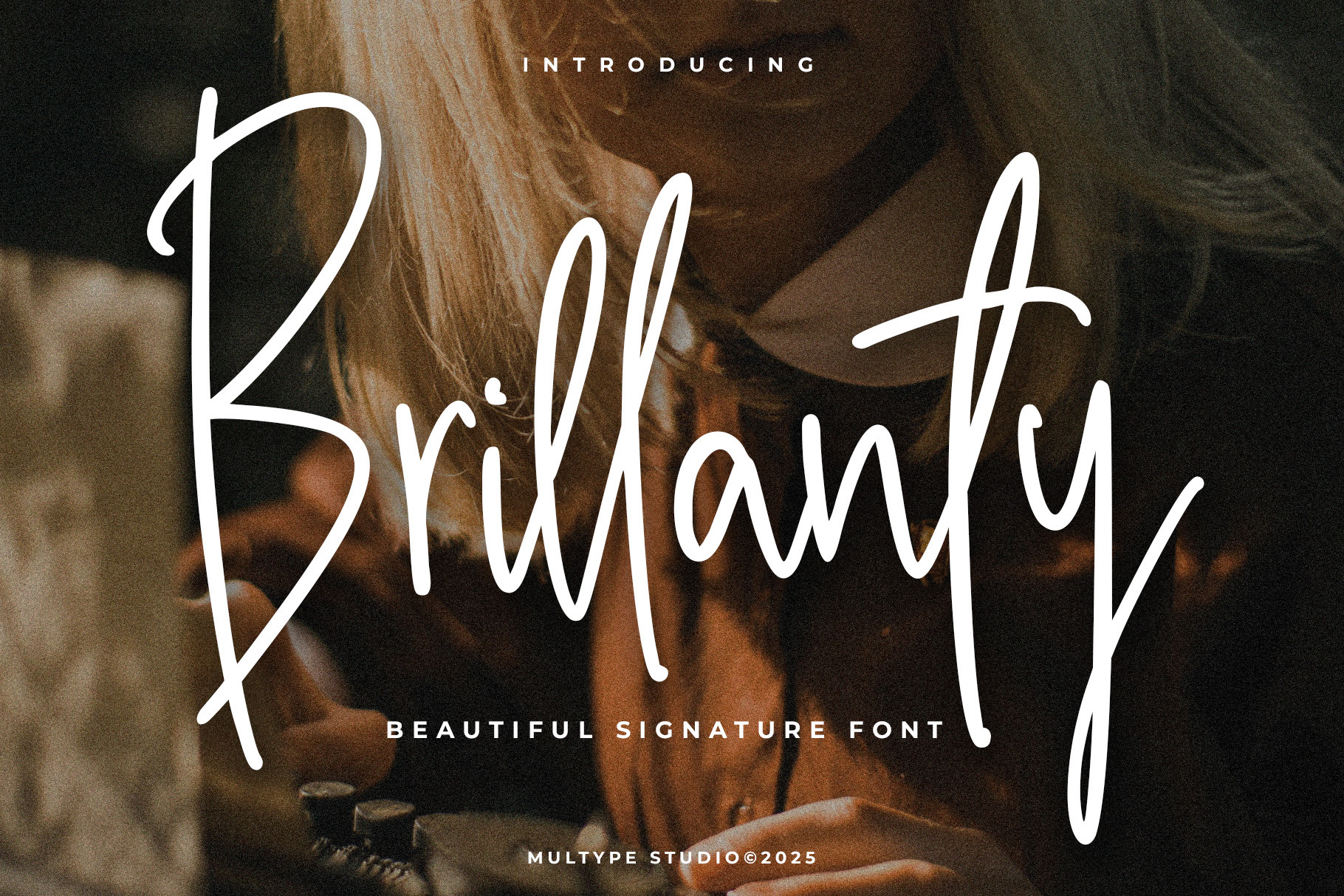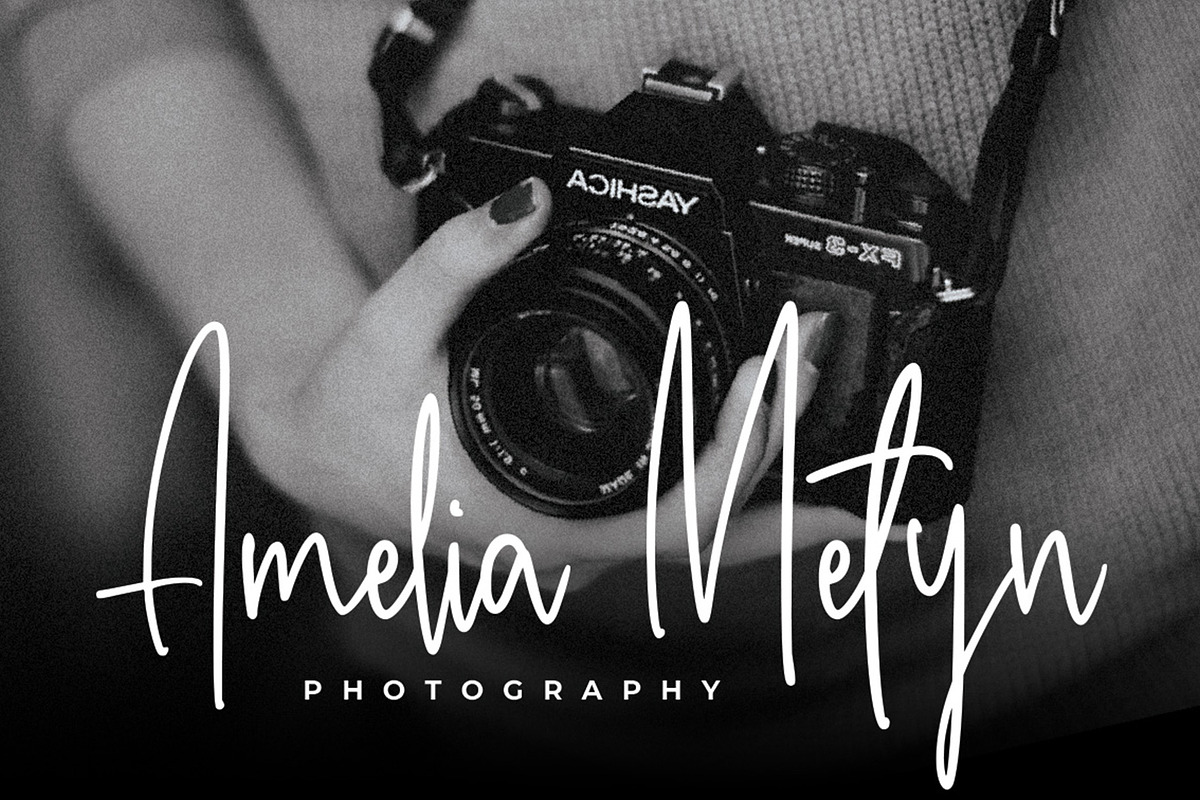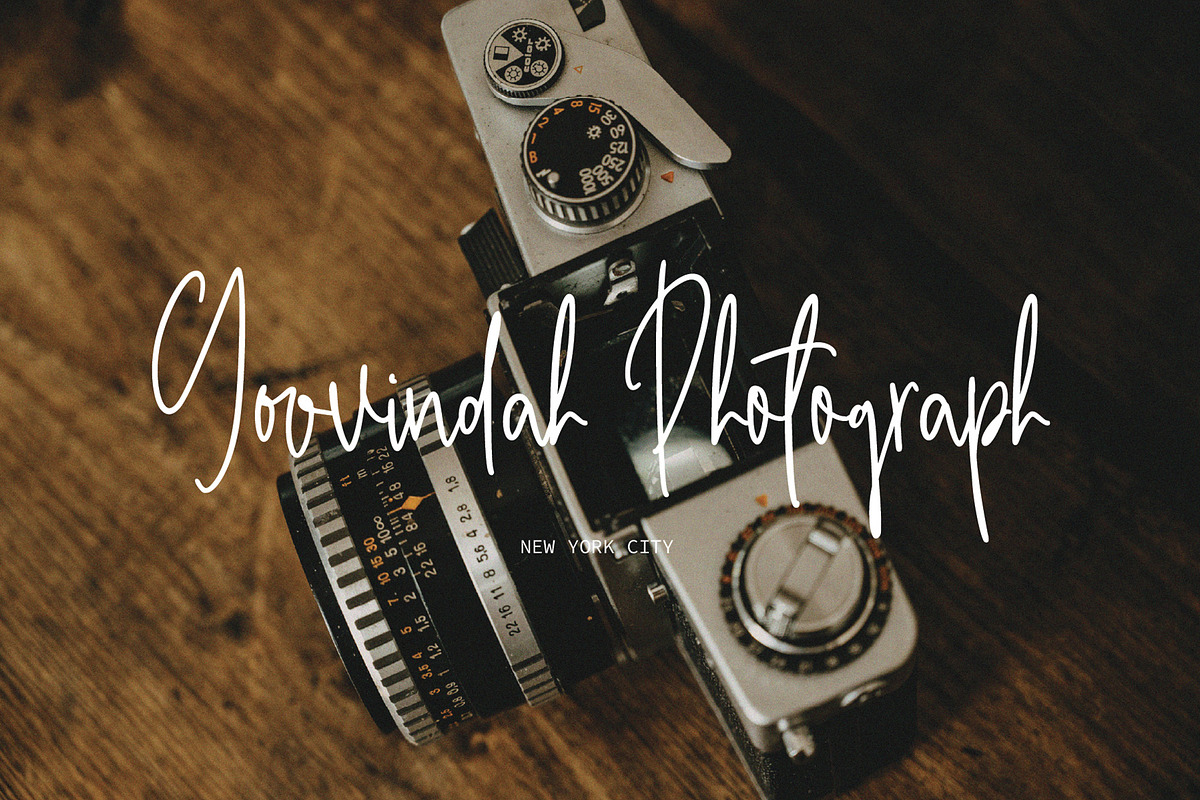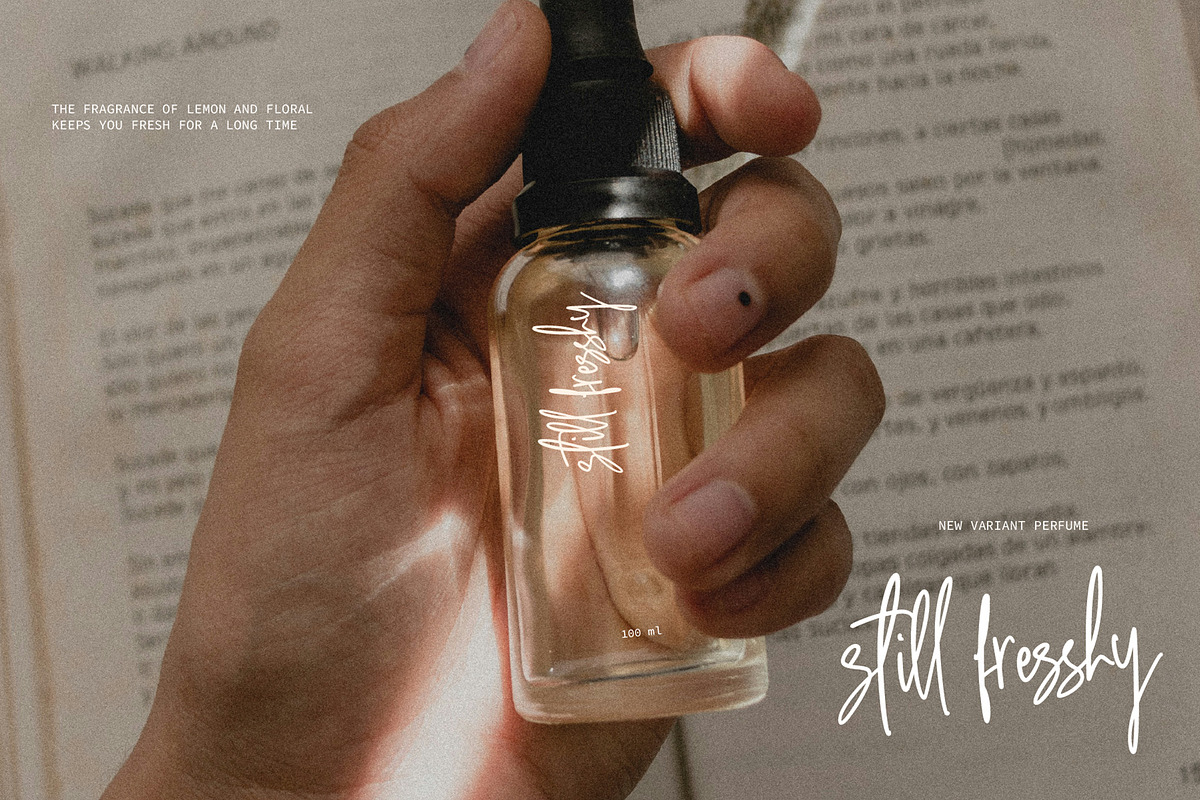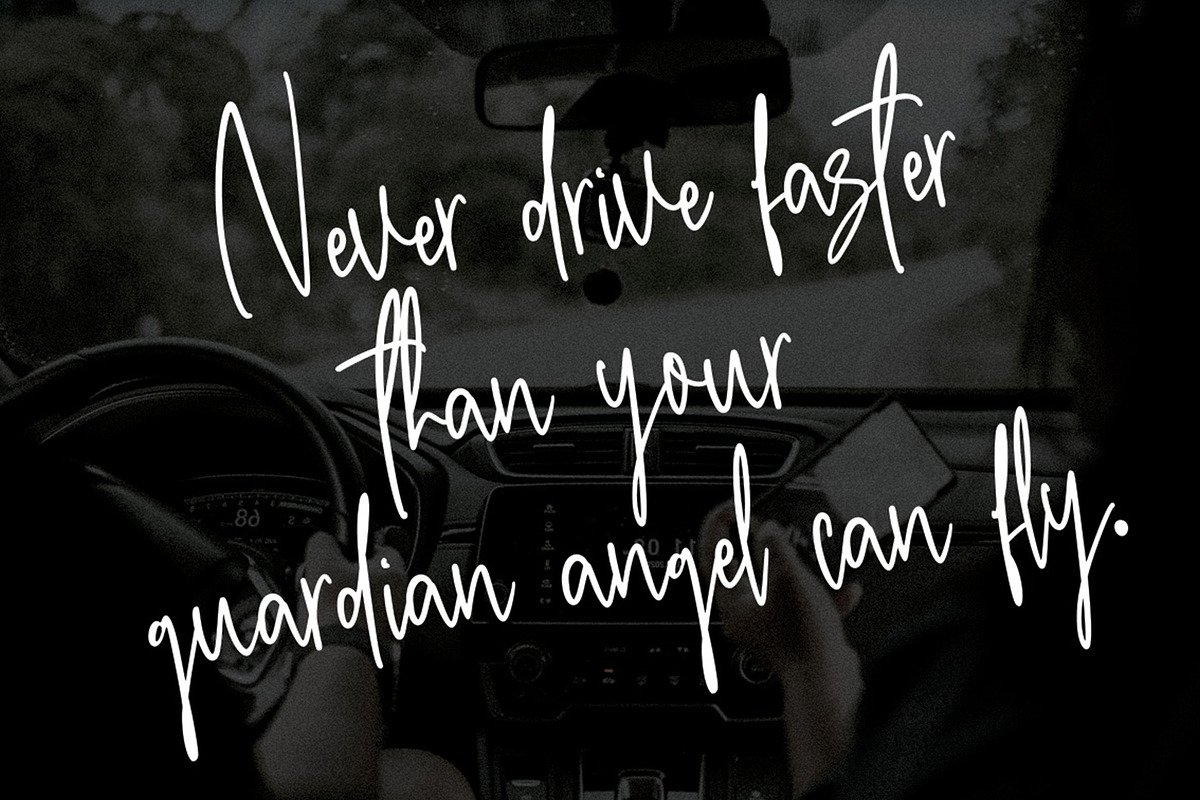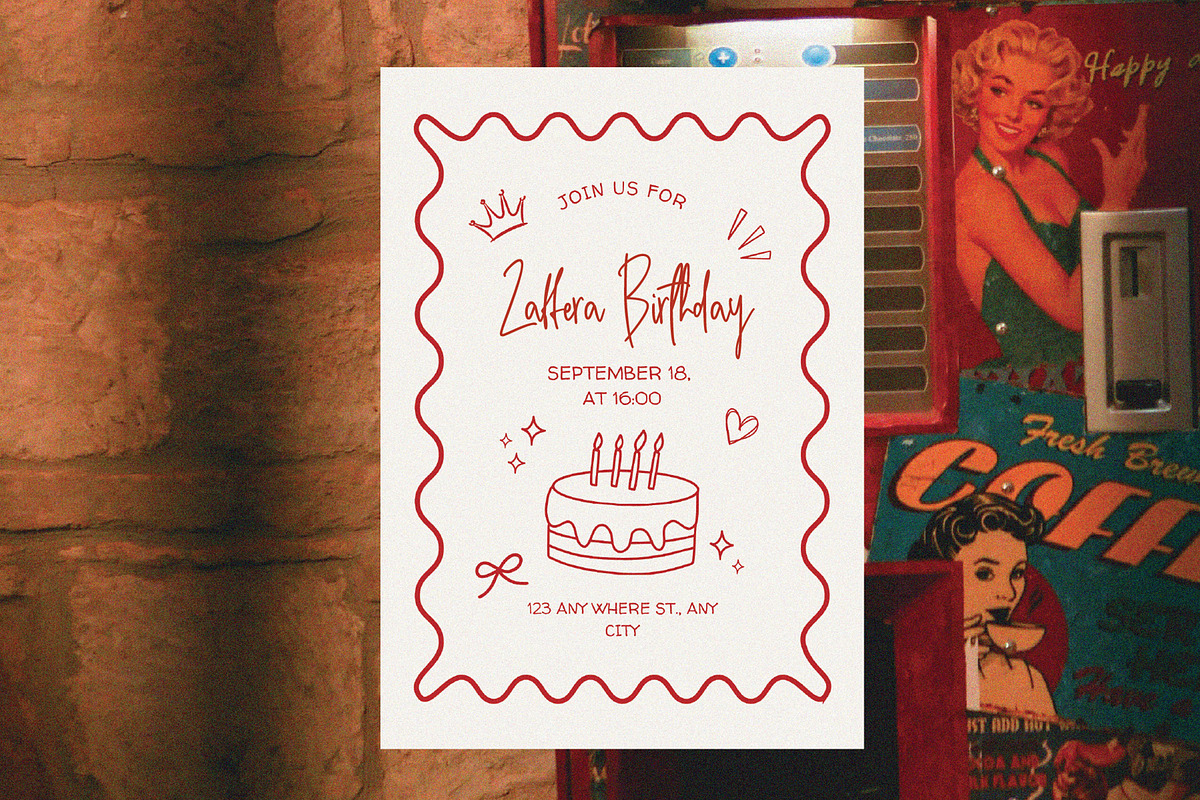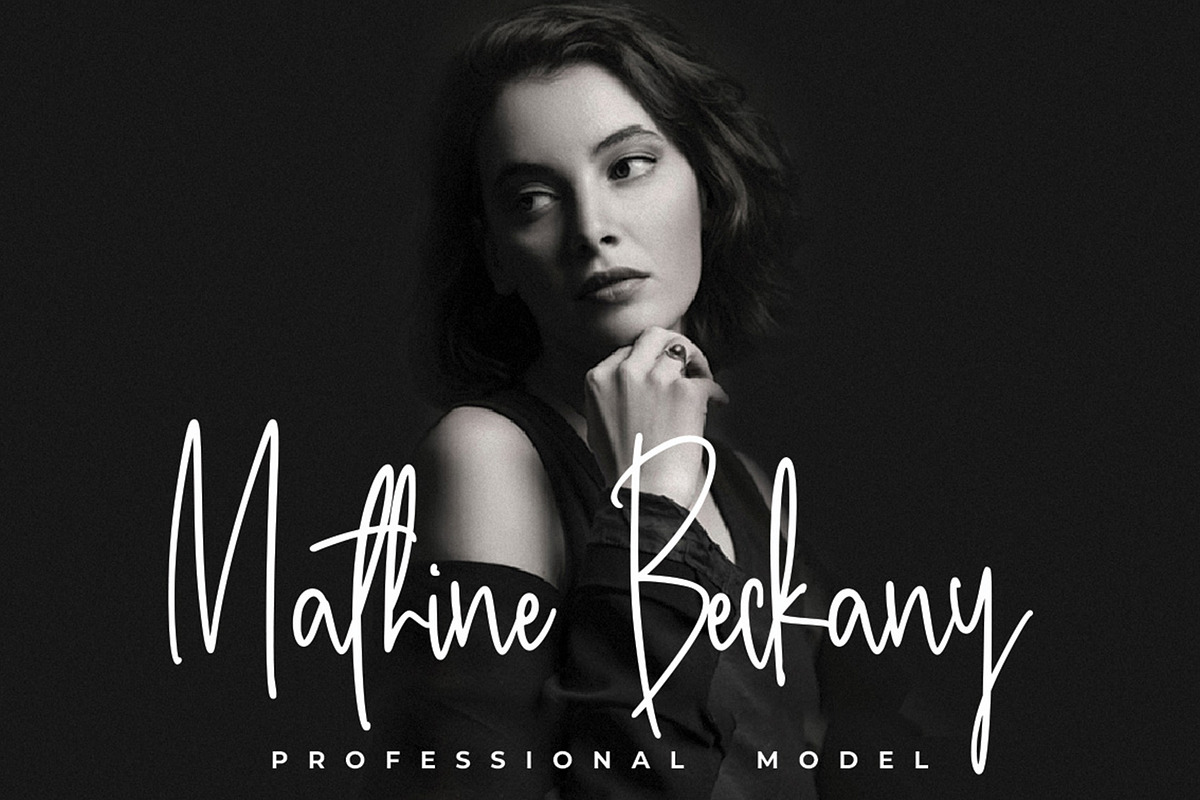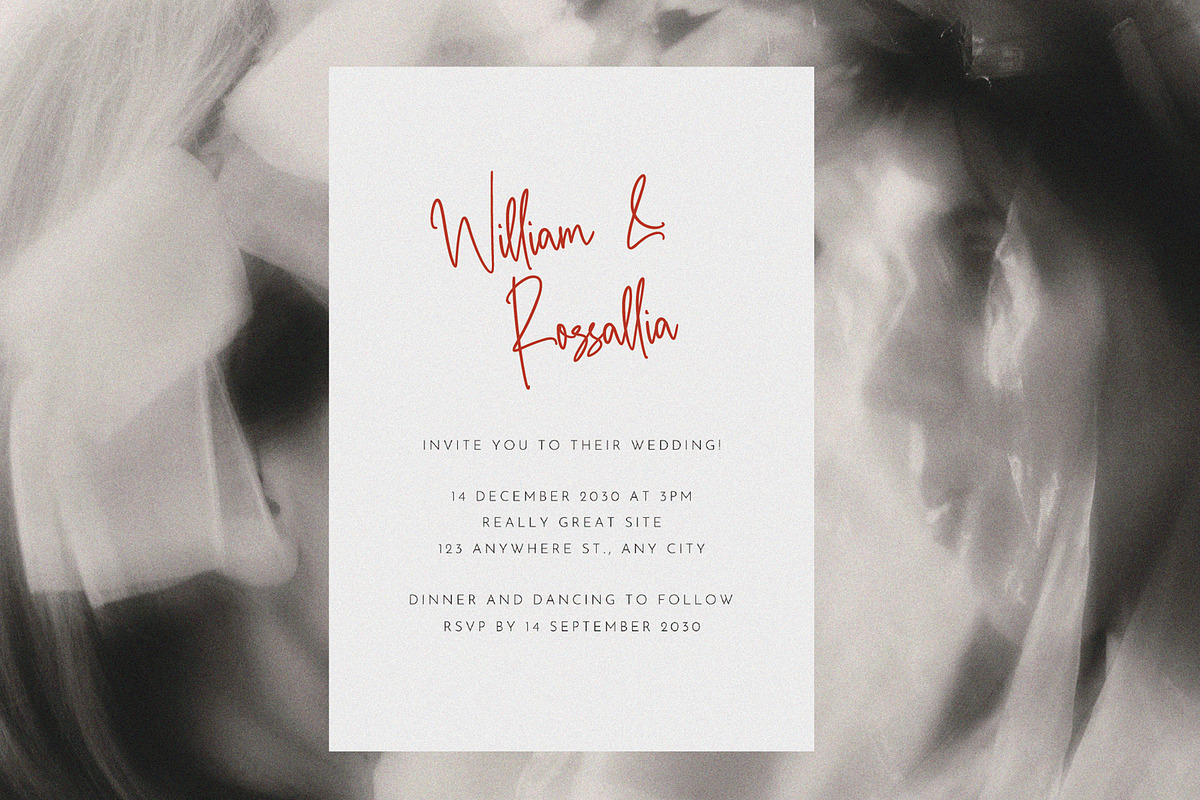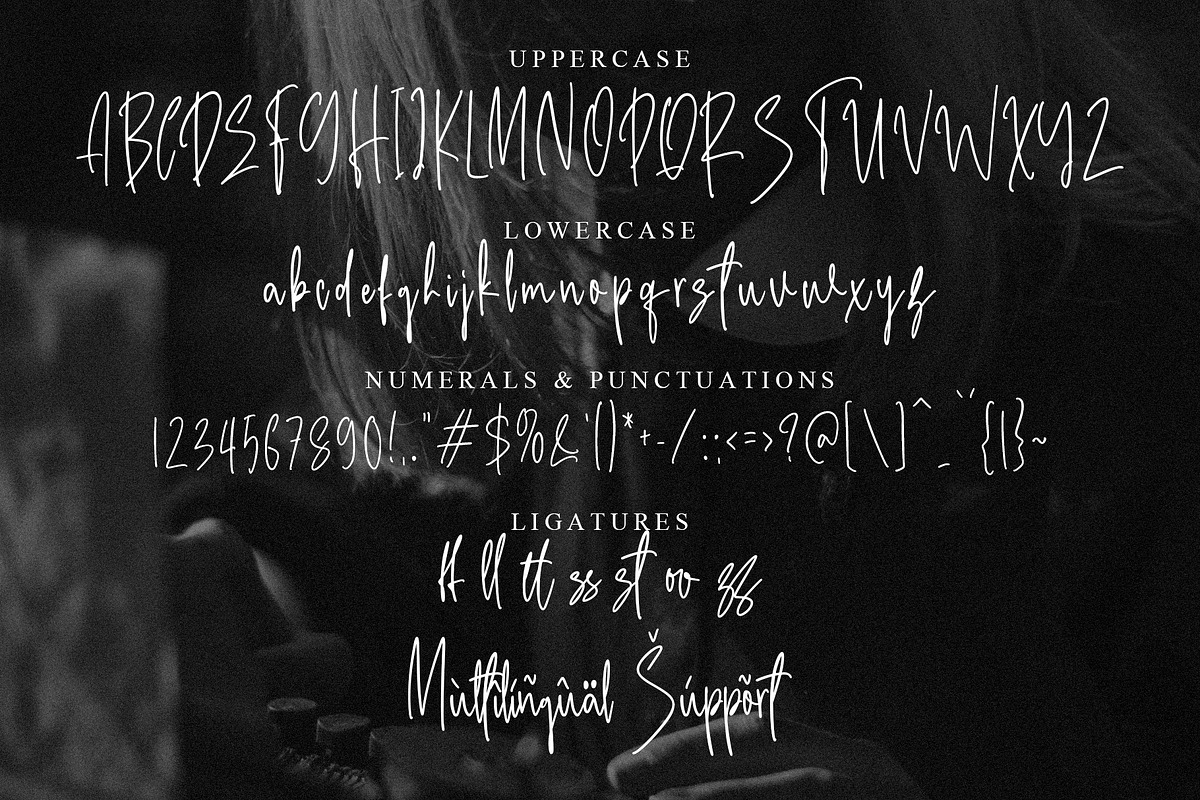
Brillanty Signature Font
Brillanty Signature Font is an elegant and natural handwritten script font with a luxurious signature style. Designed to bring a personal and sophisticated touch, this font is perfect for branding projects, wedding invitations, photography logos, beauty products, and stylish magazine titles. With its smooth strokes and authentic handwriting feel, Brillanty Signature Font adds charm and professionalism to every design.
Make your signature brand stand out beautifully with Brillanty Signature Font — the perfect blend of elegance and modern calligraphy.
- Numbers & Symbols